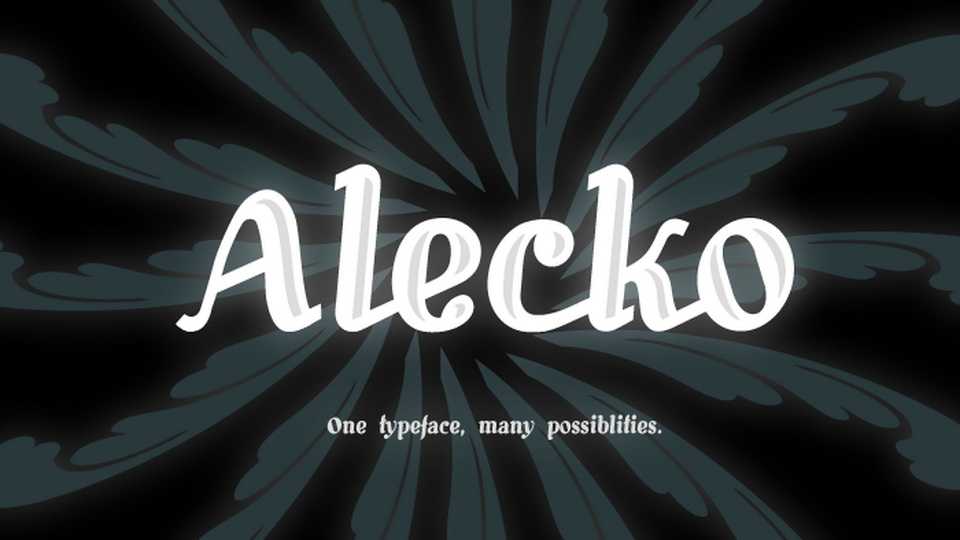
Download Alecko typeface, a distinctive didone-style font family in five styles, which is strongly influenced by calligraphy, but is at the same time drawn with mathematical precision.